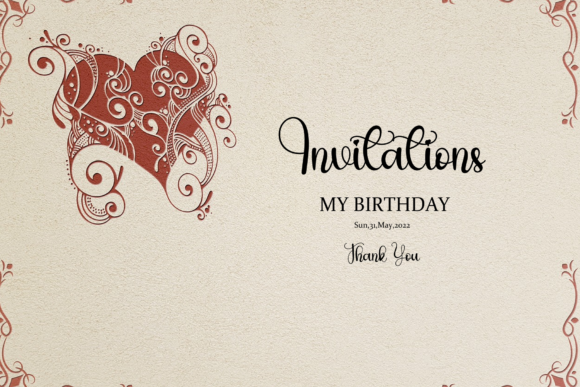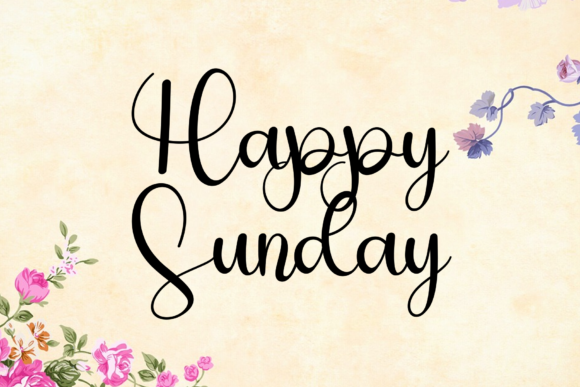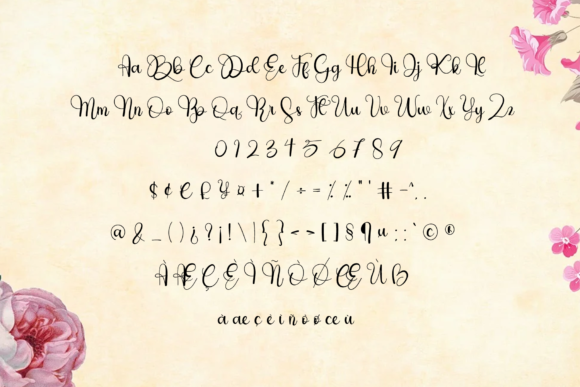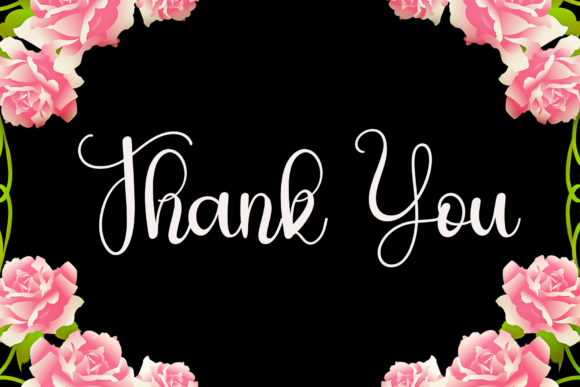
That’s where the Birthay Font comes in – a smooth, elegant, and flowing handwritten font that’s designed to elevate your most creative ideas. With its beautiful and balanced character, Birthay Font is the perfect addition to any design project. Whether you’re working on a wedding invitation, a logo, or a marketing campaign, this versatile font is sure to make a lasting impression.
Birthday Font Key Features
- Font Style: Cursive, Decorative
- Unique Characteristics: Includes customizable ornaments, swashes, and flourishes to create unique birthday messages
Birthday Font Review
Overall, I have mixed feelings about the Birthday Font. ✨ On the one hand, the playful and cursive style suits perfectly for birthday-related designs and adds a touch of whimsy. The font is highly customizable and offers various color options, making it easy to match the design with different themes. ✨ The font also supports a wide range of languages, which is a plus.
However, I do have some reservations about the font. ⚠️ Firstly, the font might be too flashy for some designs, and its cursive nature can make it harder to read in certain contexts. ⚠️ Additionally, the font lacks a bold weight, which might be a limitation for designers who want to create bold headings or titles.
Here are some specific limitations I encountered:
- Lack of bold weight, which can limit its usage in certain contexts.
- The font might be too flashy for some designs, which could detract from the overall aesthetic.
- While the font is highly customizable, some users might find the options overwhelming or difficult to navigate.
Overall, I would recommend the Birthday Font for designs that require a playful, cursive style, but with caution for more formal or straightforward designs.